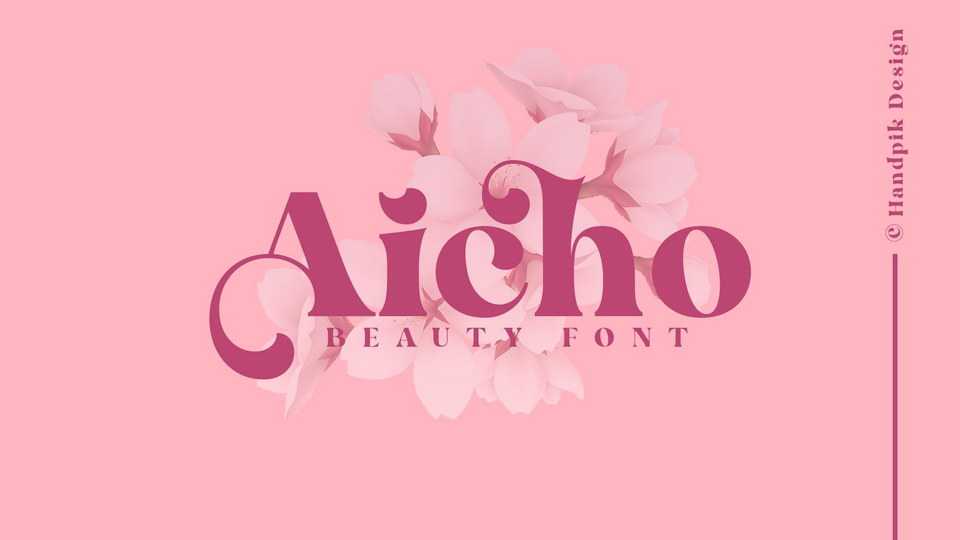
Download Aicho font, a decorative serif typeface that has a beautiful and ant elegant appearance. Aicho font is perfect for many different projects such as logos and branding, wedding designs, social media posts, advertisements, fashion, special events or anything.